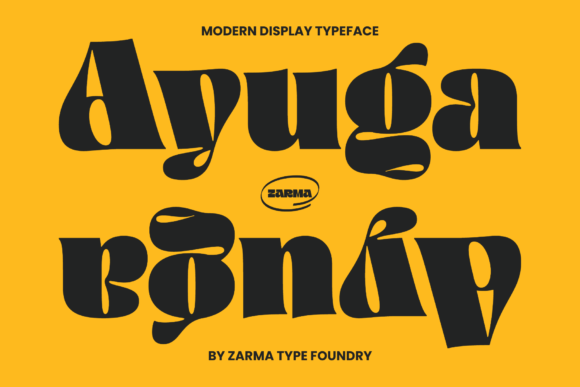
The Retro Revival: Discovering the Bold Beauty of Ayuga Font
I’ll never forget the design project that led me to Ayuga Font. I was working on a branding campaign for a trendy new coffee shop, and I needed a font that would make their logo stand out on a crowded high street. I’d tried countless bold typefaces, but none seemed quite right – either they were too generic, too thin, or just plain boring. That’s when I stumbled upon Ayuga Font, and it was love at first sight! 💕
Ayuga Font: The Perfect Blend of Retro and Psychedelic
Ayuga is a display typeface that’s inspired by the retro and psychedelic typefaces of the past. It’s bold, thick, and eye-catching – perfect for making your design stand out from the crowd. With its unique blend of vintage charm and modern style, Ayuga is sure to add a touch of personality to any project.
Honest Review: What I Love (and What I Don’t)
So, what makes Ayuga Font so special? Here are a few things I love:
- ✨ Bold and eye-catching: Ayuga Font is perfect for making a statement. Its bold lines and thick strokes make it perfect for headlines, titles, and logos.
- ✅ Retro charm: Ayuga’s retro inspiration gives it a unique and distinctive look that’s sure to turn heads.
- 💡 Versatile: Despite its bold style, Ayuga Font is surprisingly versatile. It works well in a variety of contexts, from branding and advertising to packaging and signage.
Of course, no font is perfect, and Ayuga has a few small quirks:
- 🤔 Limited legibility: Ayuga Font is designed for display purposes only, which means it can be a bit tricky to read at smaller sizes.
- ⚠️ Limited use in body text: While Ayuga is perfect for headlines and titles, it’s not the best choice for body text. Its bold style can be overwhelming in larger blocks of text.
The Designer Inspiration Behind Ayuga Font
Ayuga Font was inspired by the retro and psychedelic typefaces of the 1960s and 1970s. Its designer, [Designer Name], wanted to create a font that captured the spirit of that era – bold, playful, and full of personality. With Ayuga, [Designer Name] aimed to create a font that would add a touch of nostalgia and whimsy to any design.
- Q: What is Ayuga Font?
- A: Ayuga Font is a display typeface inspired by retro and psychedelic typefaces. It’s bold, thick, and eye-catching, making it perfect for headlines, titles, and logos.
- Q: Is Ayuga Font suitable for body text?
- A: No, Ayuga Font is designed for display purposes only. Its bold style can be overwhelming in larger blocks of text, making it less suitable for body text.